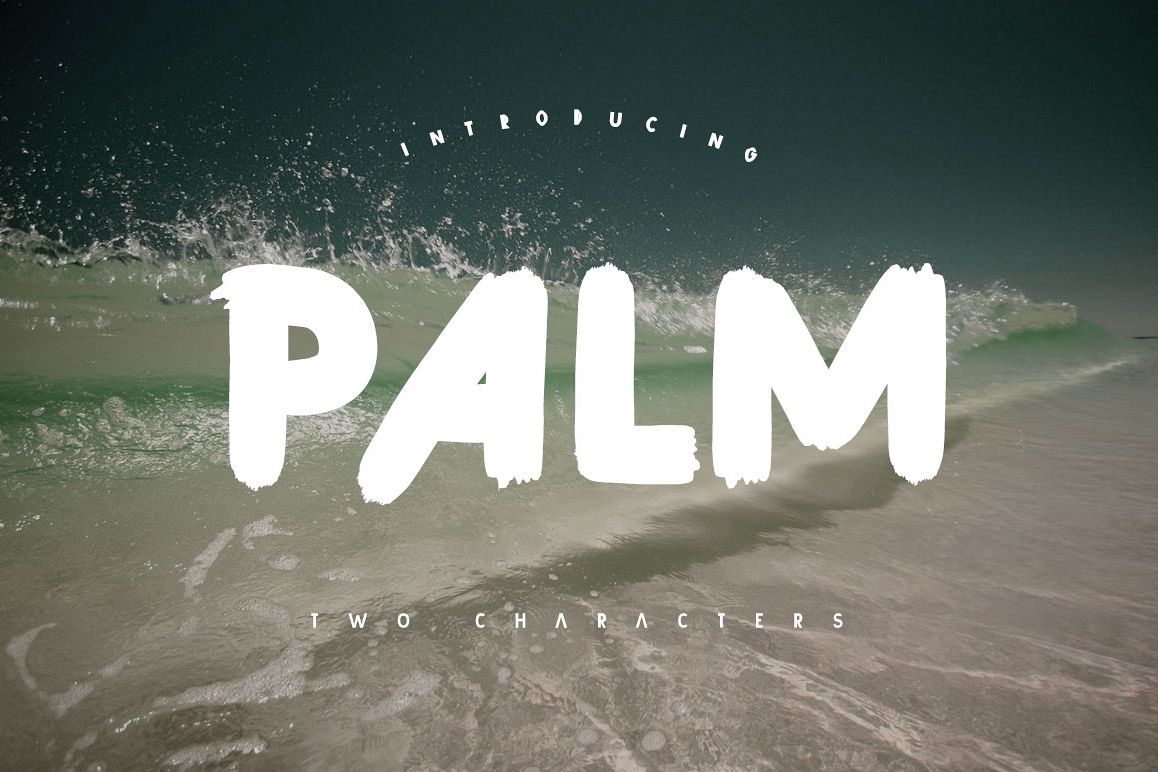
Palm Brush Font
by Maulana Creative
Give your designs an authentic brush handcrafted feel. "Palm Brush Font" is perfectly suited to stationery, logos and much more.